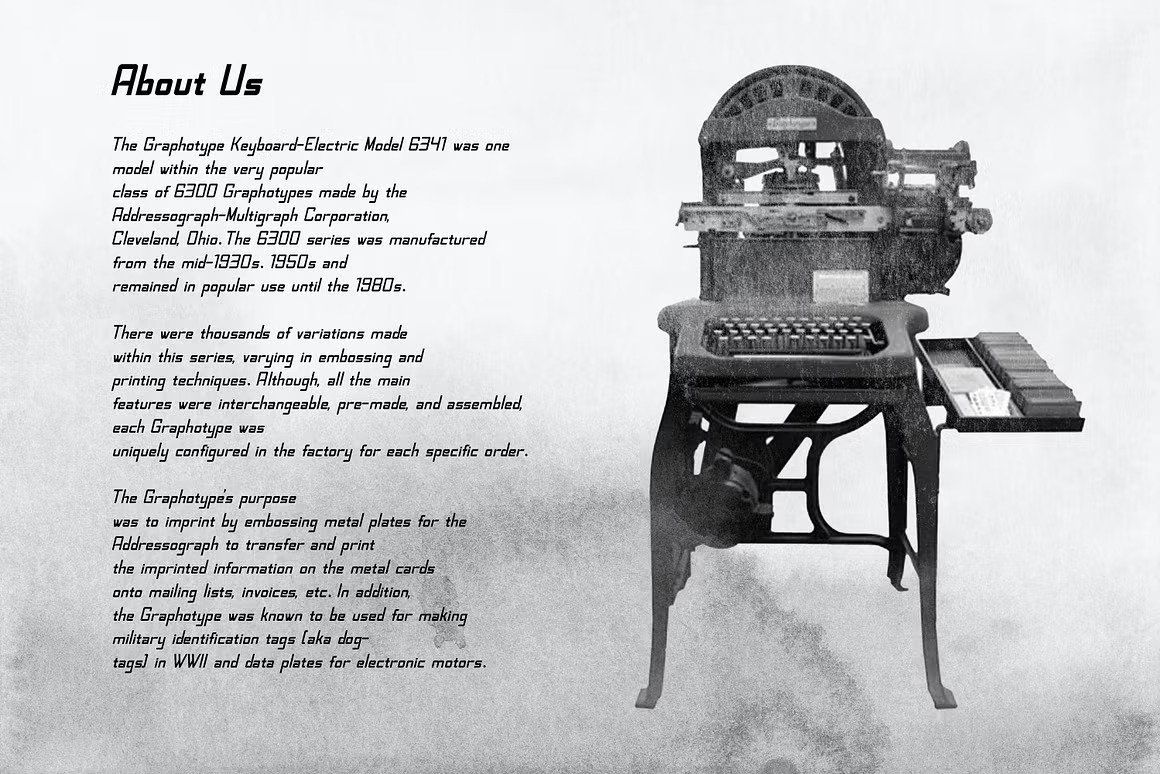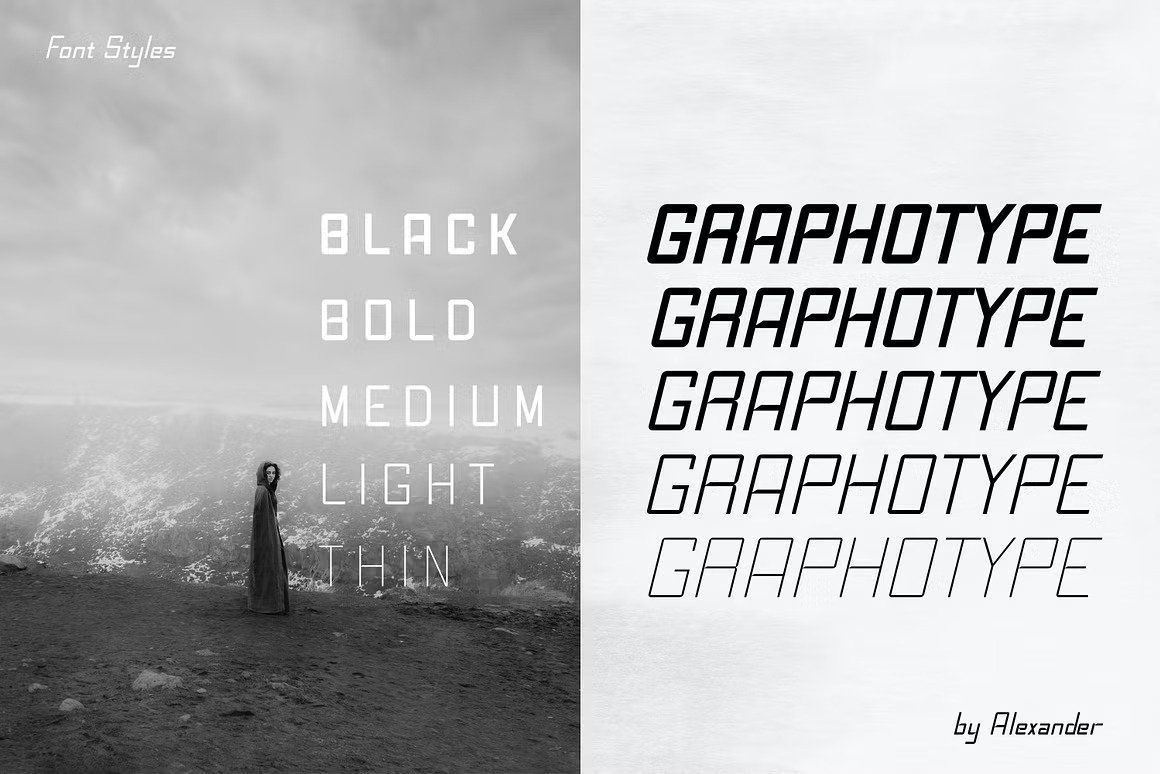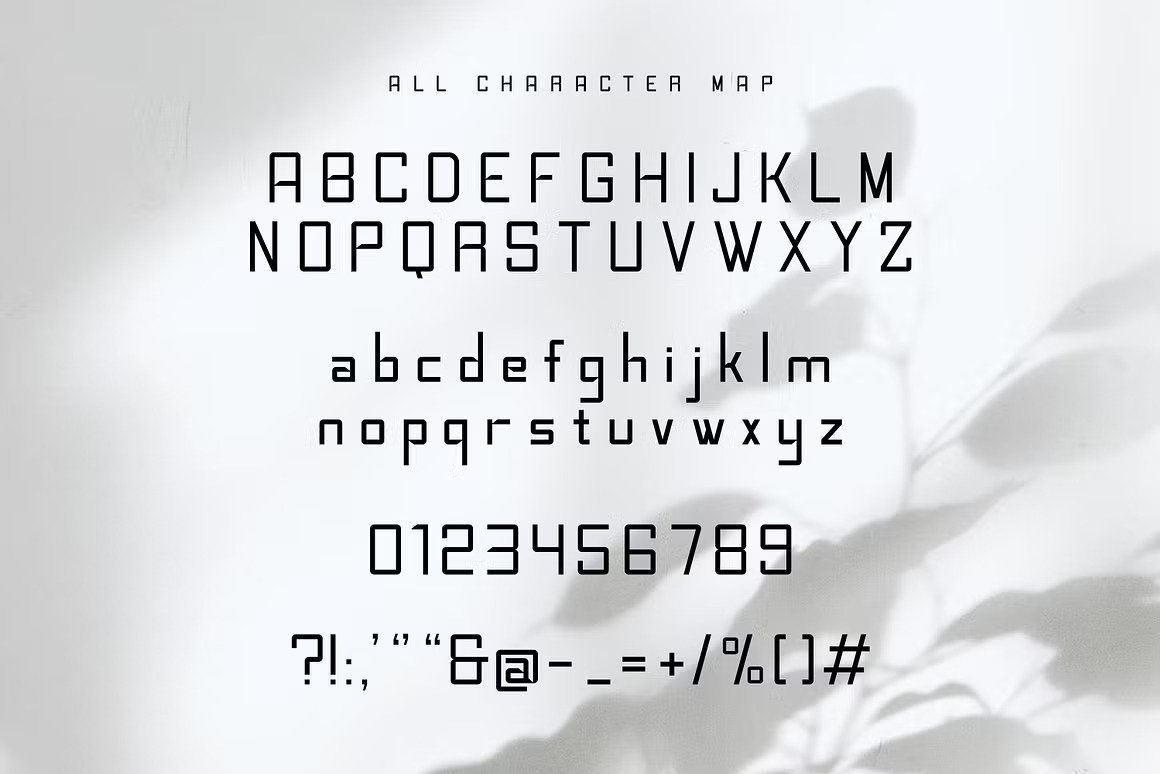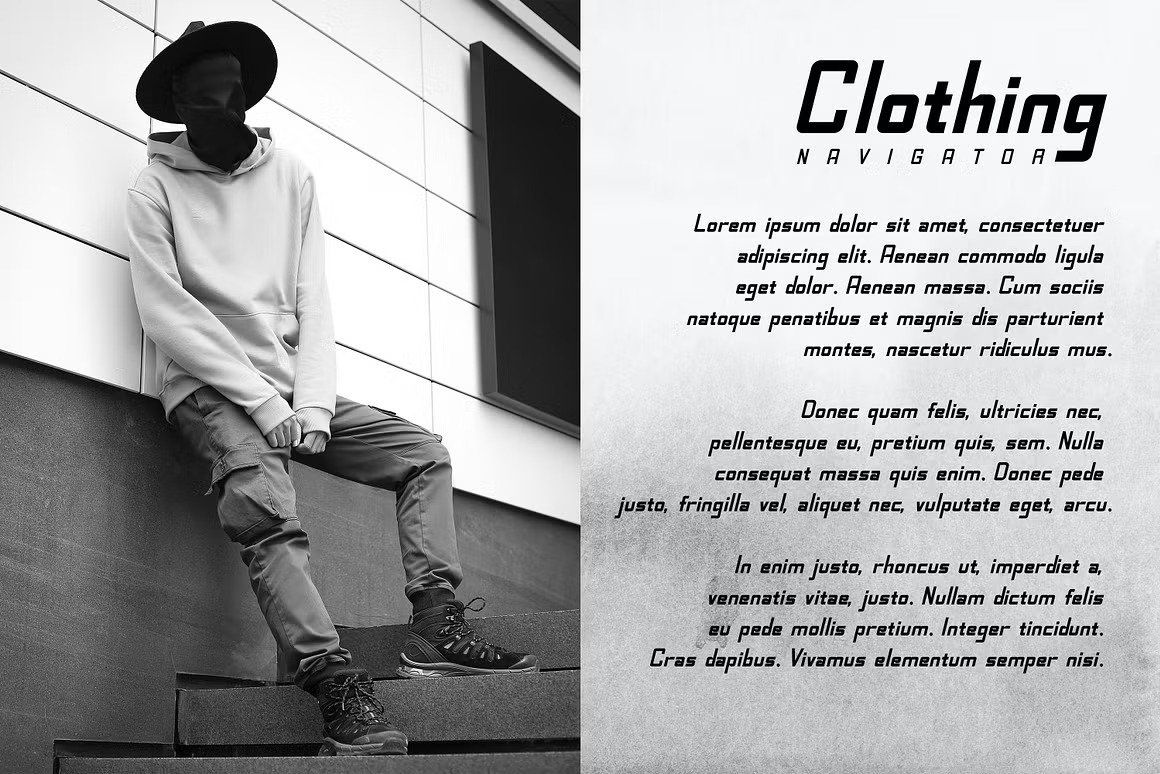
The new Graphotype Vintage Font from Alexander Co. studio is a perfect choice if you're looking for unique, old-fashioned letters to use in your designs. This font is created from original retro graphics, reflecting the mindset of designers from a previous era.
The Graphotype Vintage Font has unique letter forms, each of which carries a sleek yet vivid style that fits perfectly with vintage design. However, the font's general usage is not limited to this: the Graphotype Vintage Font can easily be used for posters, flyers, websites, logos, and many other graphic design projects.
The font includes Latin basic letters and Arabic numerals, as well as additional characters such as dots, commas, colons, and other special characters. The font file format is OpenType, which means it can be used on multiple operating systems and software, and character combinations within the font are easy to create.
Font properties:
5 weights: regular, bold, light, medium, and ultralight
Highly detailed and elaborate characters and symbols
Perfect scaling and line spacing
Usage recommendations:
Web design
Posters
Labels
Any designed material